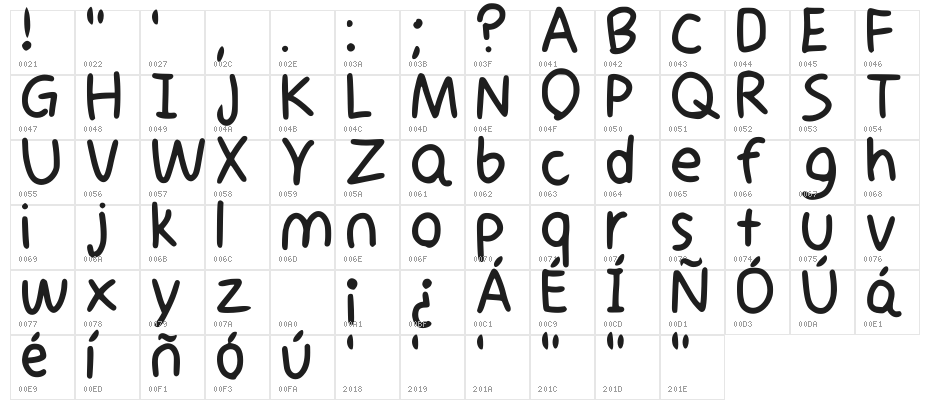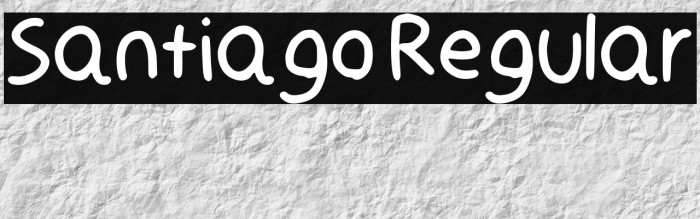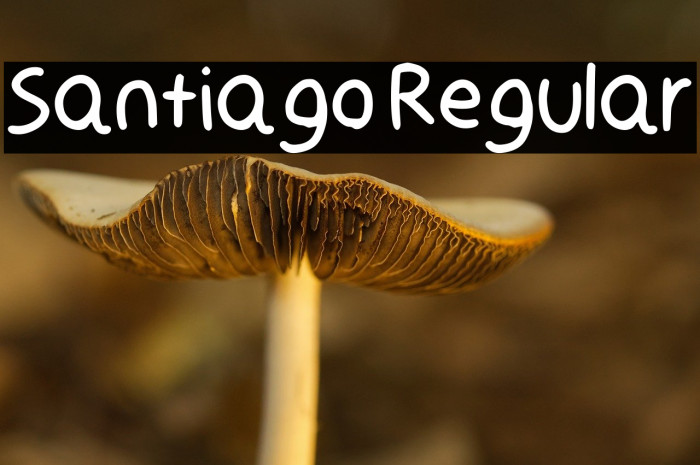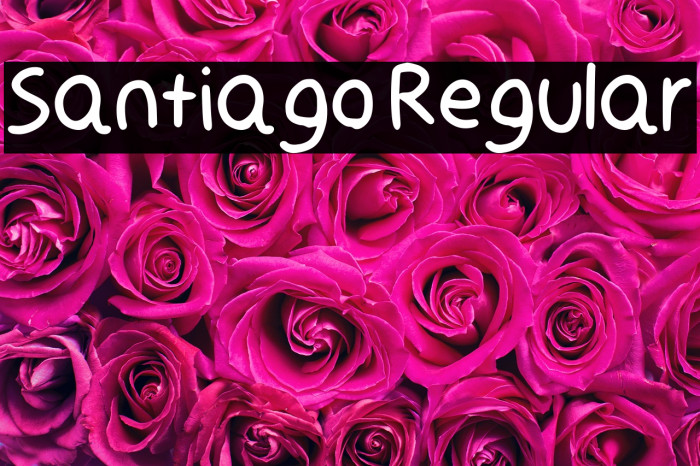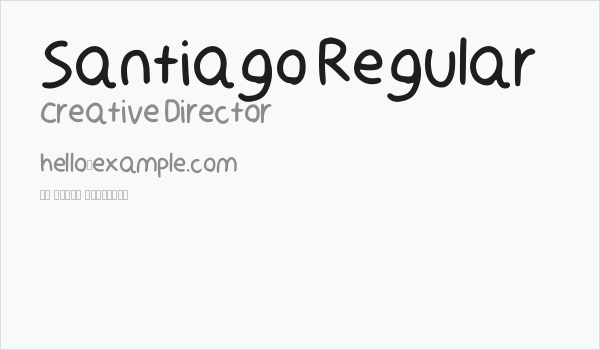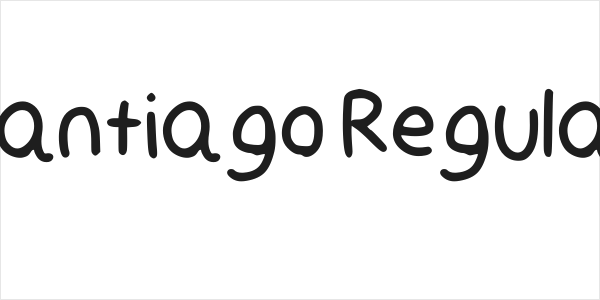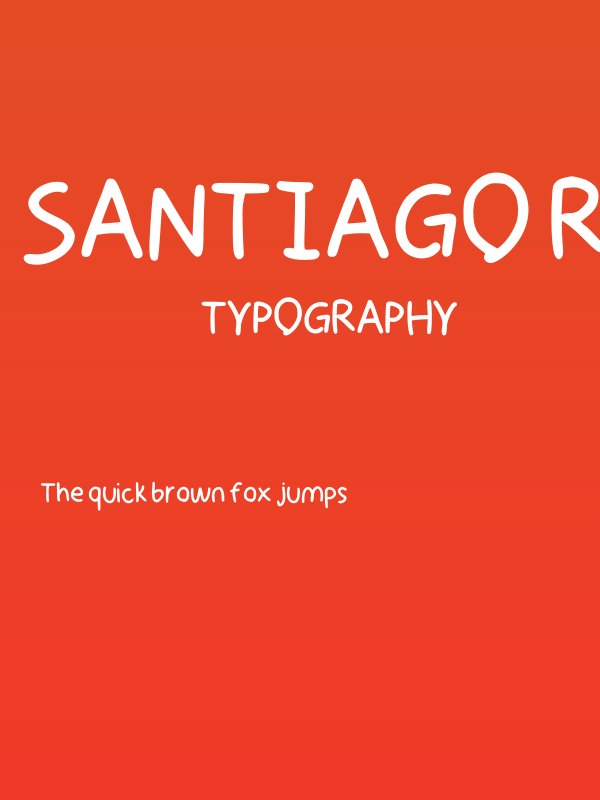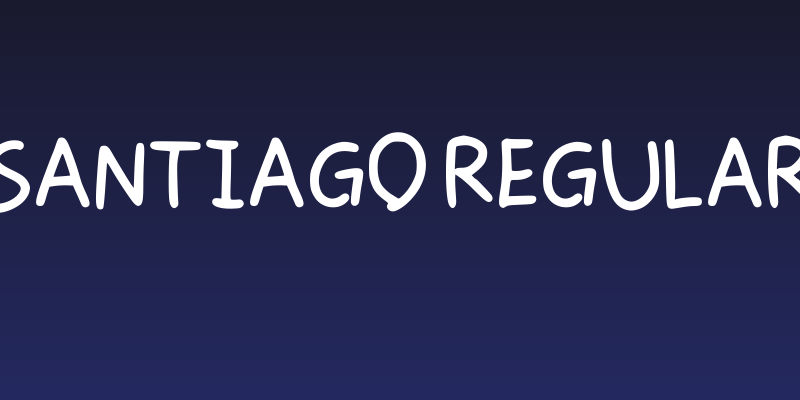
Santiago Regular Font
Santiago Regular Description
A playful and informal handwritten font with rounded edges and a casual appearance.
| Overall Style | Casual |
| Use Case | Headlines, Logos |
| Proposed Projects | Children's books, casual invitations, friendly branding. |
| Author | Fonts by MΓ₯ns GrebΓ€ck |